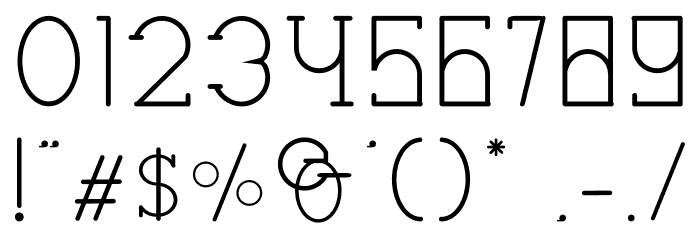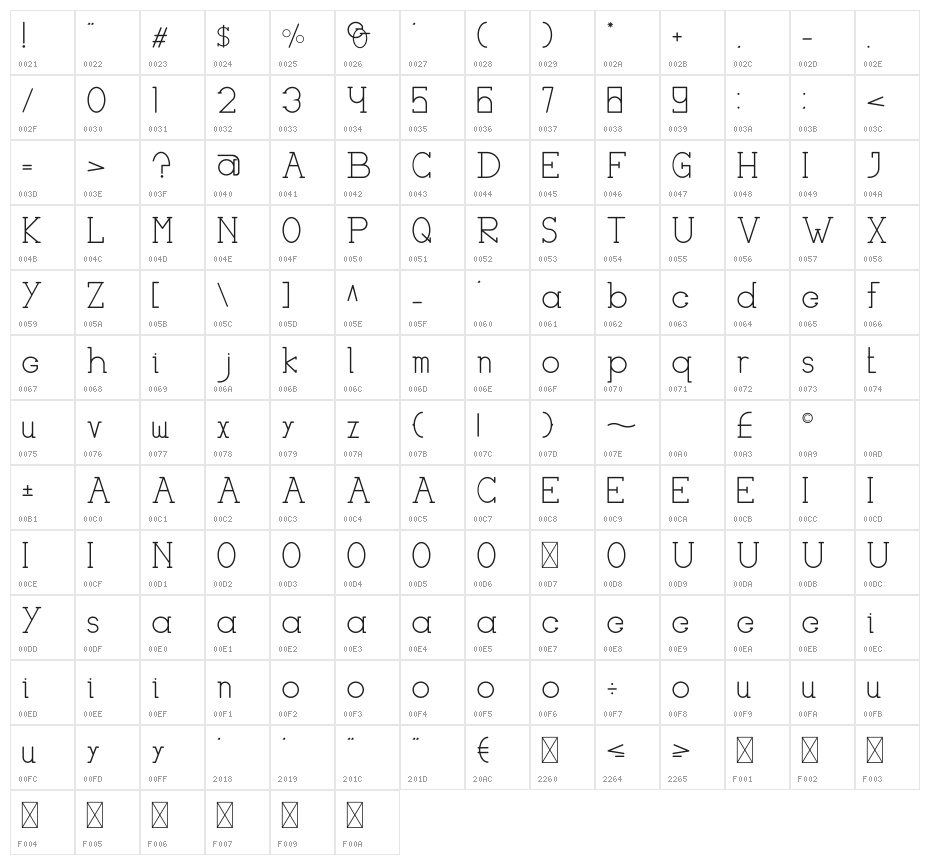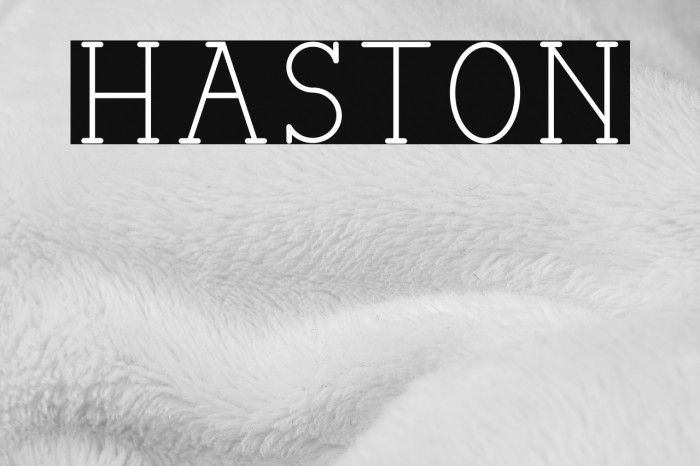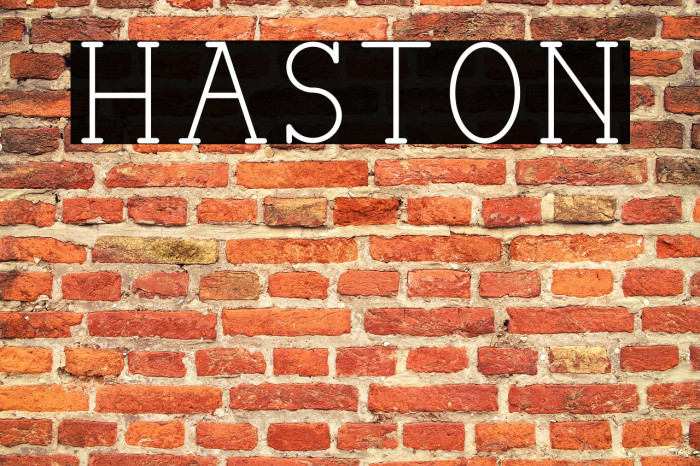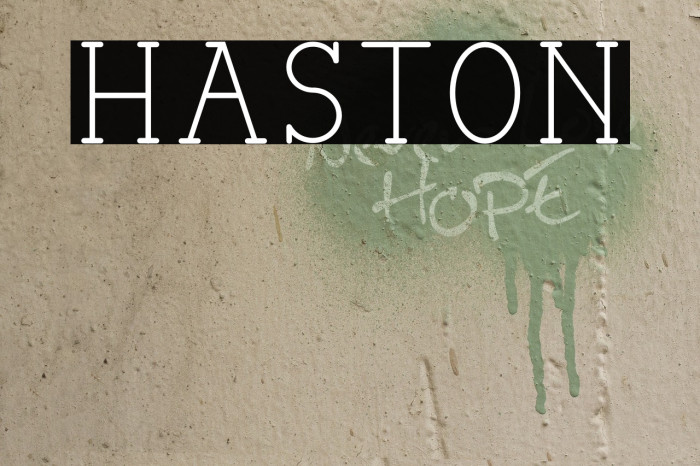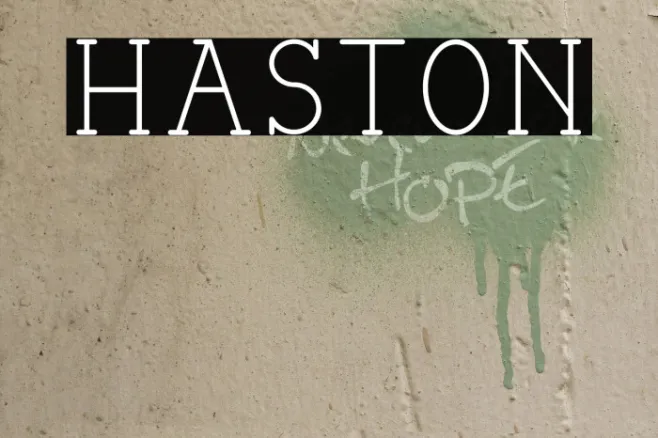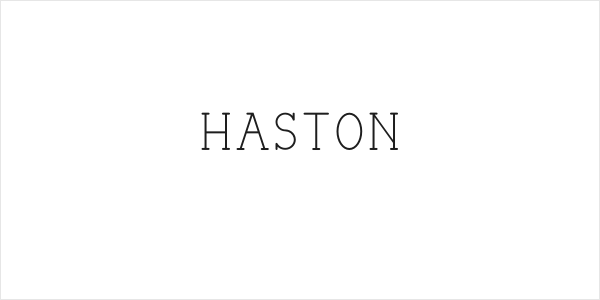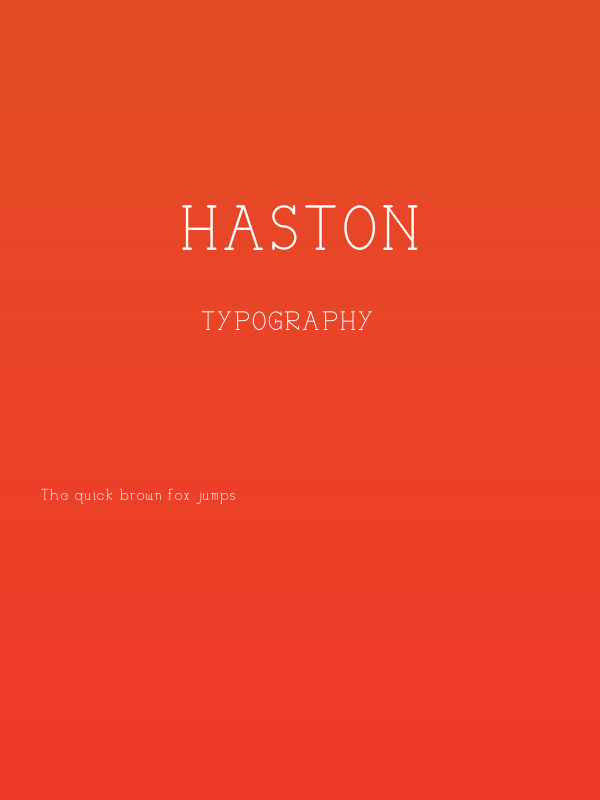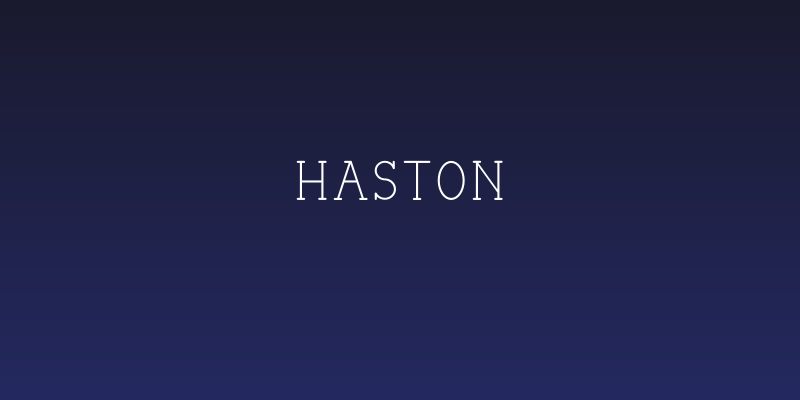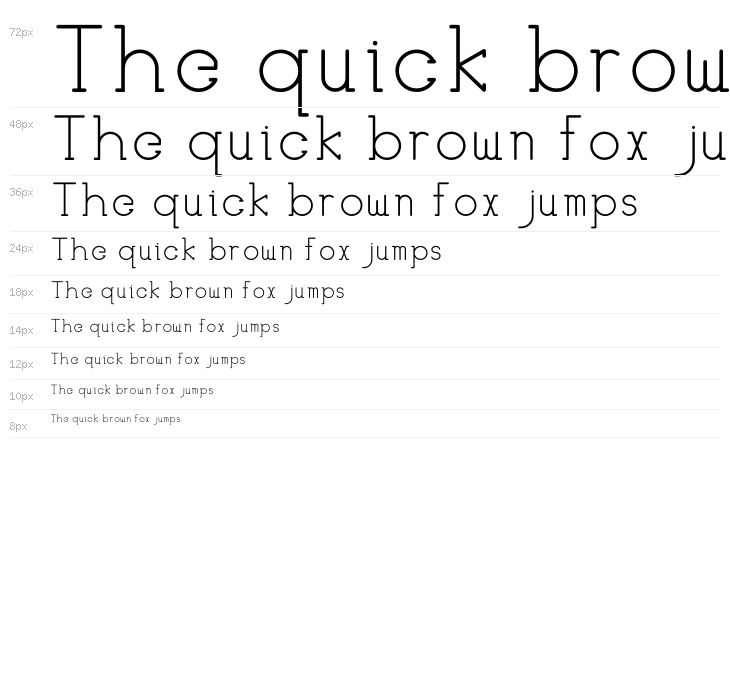
HASTON Font
HASTON Description
This font features a modern and geometric design with a clean and minimalistic aesthetic. The characters are constructed with a uniform stroke width, giving it a monospaced appearance. The uppercase letters are tall and narrow, while the lowercase letters maintain a consistent height, creating a balanced look. The numerals are distinct and easy to read, with unique shapes that add character. Special characters are well-defined, maintaining the overall geometric style. This font is suitable for projects that require a contemporary and structured look.
Use CaseLogos, digital interfaces, coding, editorial layouts.
Proposed ProjectsIdeal for tech branding, digital interfaces, coding environments, and modern editorial layouts.